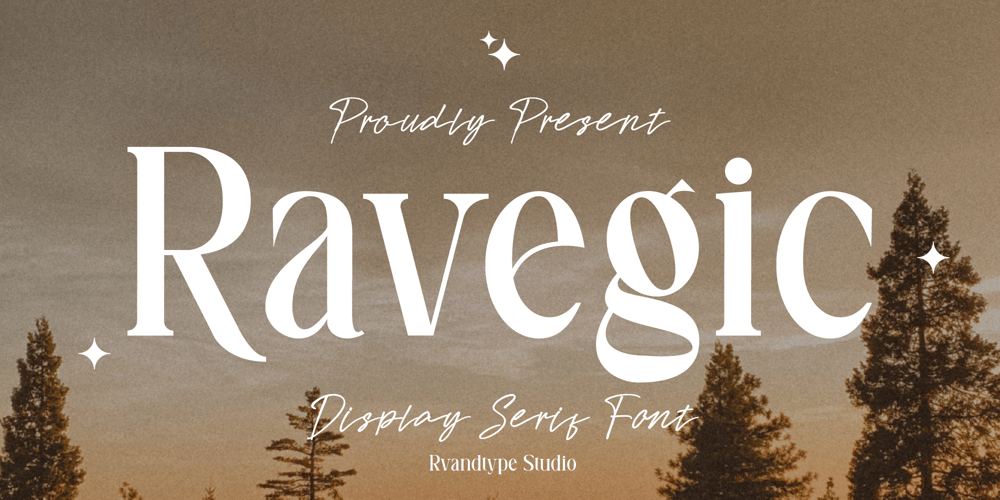
Ravegic Font Family was designed by Randi Irvan and published by Rvandtype. Ravegic contains 1 styles and family package options. Ravegic Serif is a cool, thick lettered and assertive display font. Featuring the perfect amount of trendiness, this font will make your designs come to life. Ravegic is PUA encoded which means you can access all of the glyphs.Features : uppercase & lowercase numbers and punctuation multilingual Alternate Characters PUA encoded